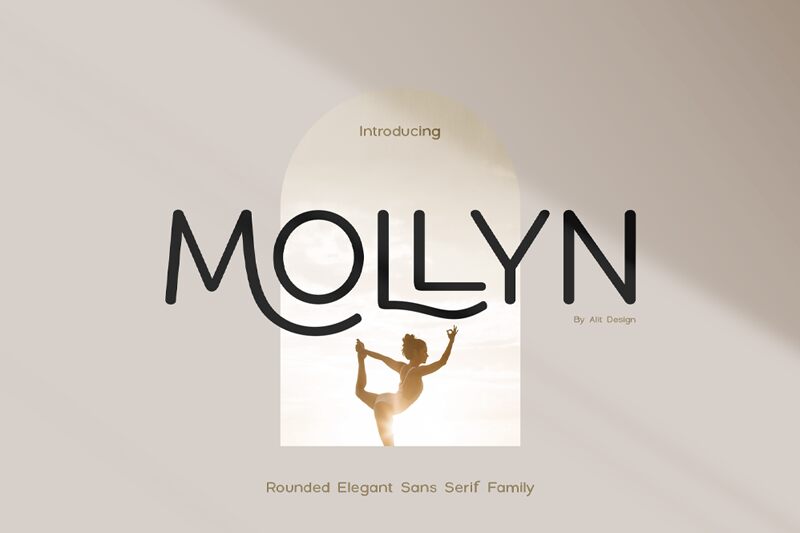
Mollyn, the creation of Alit Design, is a modern and clean sans-serif font that will bring a touch of sophistication to any project. Its semi-light weight adds a delicate touch while preserving legibility, making it ideal for digital or print designs. The minimalistic style of Mollyn lends itself to various projects from branding and logo design to web design and editorial layouts. This font is perfect for those in search of an elegant yet simple option that will give their project the professional edge it deserves. Add Mollyn to your font library today and elevate your designs effortlessly!
Mollyn